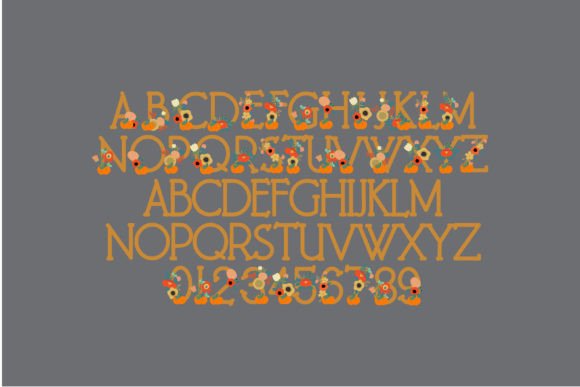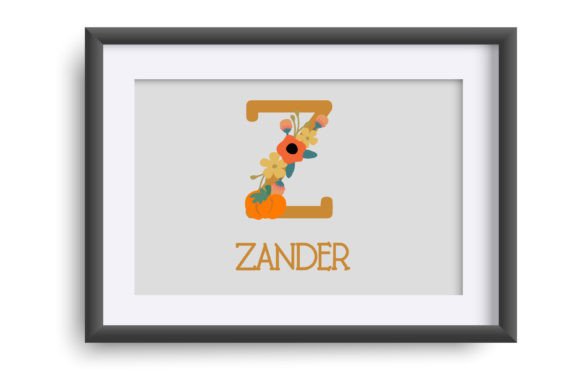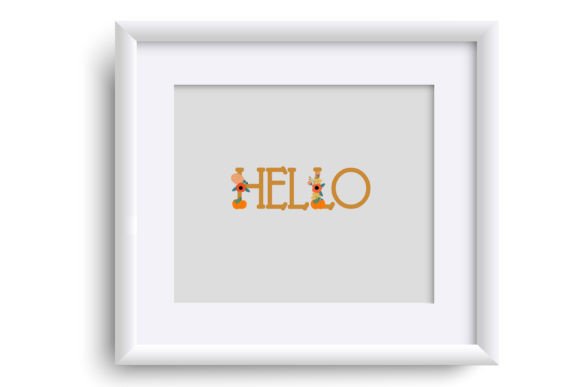
Introduction to Pumpkin Posies Font
Have you ever stared at a blank design canvas, struggling to come up with the perfect font to elevate your creative project? The right font can make all the difference, and that’s where the enchanting Pumpkin Posies Font comes in. This charming full-color font is a game-changer for designers looking to add a touch of whimsy and personality to their work.
With its playful serif and adorable floral and pumpkin motifs on the uppercase letters, Pumpkin Posies Font is the perfect choice for titles, displays, posters, and more. Whether you’re a seasoned designer or a crafty enthusiast, this high-quality font is sure to bring a smile to your face and inspire your next creative endeavor.
Key Features of Pumpkin Posies Font
- High-quality, whimsical design ideal for creative projects and crafters.
- Features a transparent background, making it easy to use with various design elements.
- High-resolution design, suitable for use in print and digital projects.
- Unique, hand-drawn style with intricate details, perfect for adding a touch of personality to any design project.
Honest Review: Pumpkin Posies Font
I recently had the chance to work with the Pumpkin Posies Font on a creative project and I must say, it’s a fantastic addition to any design resource. The font’s high quality is evident in its crisp lines and delicate details, making it perfect for adding a touch of whimsy to your designs.
One of the standout features of the Pumpkin Posies Font is its transparent background, which makes it easy to use in a variety of design scenarios. Whether you’re working on a digital project or a print-based design, this font is sure to impress.
Here are some of the things that work well with the Pumpkin Posies Font:
- ✨ Transparent background for easy use
However, I did notice a few limitations:
- ⚠️ Limited character set may not be suitable for long-form text
- ⚠️ May not be suitable for use in very small font sizes
Overall, I’m really impressed with the Pumpkin Posies Font and I think it’s a great addition to any designer’s toolkit. With its high-quality design and transparent background, it’s sure to be a hit on your next creative project.
Tips for Getting the Most Out of the Pumpkin Posies Font
Some tips for getting the most out of the Pumpkin Posies Font include experimenting with different font sizes and colors, combining the font with other design elements, and using the font’s transparent background feature to create unique and eye-catching designs.
Common Use Cases for the Pumpkin Posies Font
Some common use cases for the Pumpkin Posies Font include creating social media graphics, designing invitations and posters, and creating custom logos and icons. The font is a versatile design resource that can be used for a variety of creative projects.